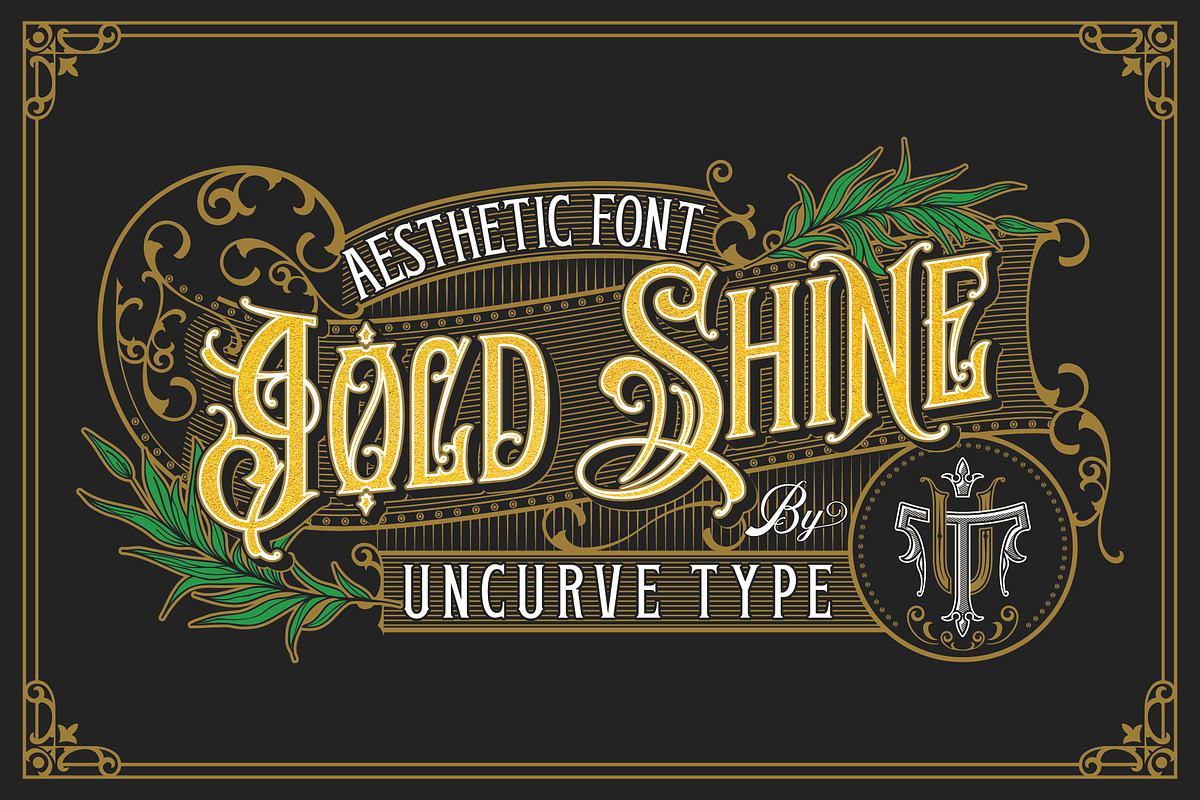
GoldShine with Extras Font Free Download is a luxurious, elegant typeface designed to add a touch of sophistication to any design project. Featuring smooth, flowing letterforms with a metallic shine effect, this font is perfect for high-end branding, invitations, logos, and premium packaging.
The additional extras included in the font package—such as swashes, alternate characters, and unique decorative elements—allow for endless creative possibilities. Whether you're crafting a chic logo, an exclusive event invitation, or an elegant product label, GoldShine with Extras Font Free Download elevates your design with flair and elegance.